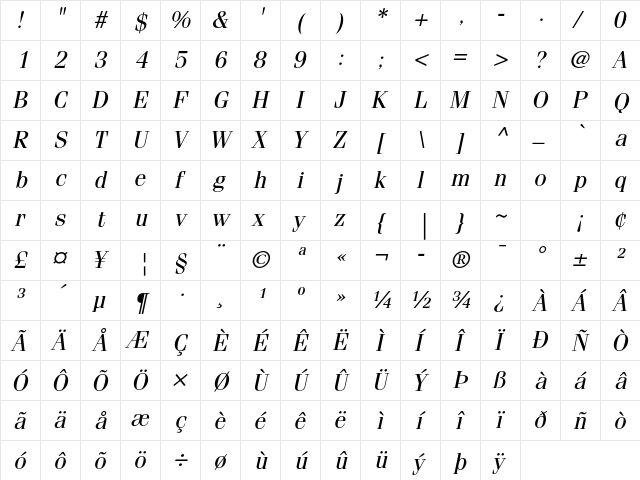
ITC Fenice Std Oblique Font Preview
ITC Fenice Std Oblique
ITC Fenice Std Oblique Font Details
| Designer | Aldo Novarese |
Design Context for ITC Fenice Std Typeface
ITC Fenice Std takes a measured approach to typography — its balanced proportions and neutral character make it a reliable workhorse for both digital and print work. Its italic angle brings a sense of urgency and motion to the letterforms.
Pro Tip: Use ITC Fenice Std for emphasis, pull quotes, and subheadings where its slanted energy can add rhythm to the layout.